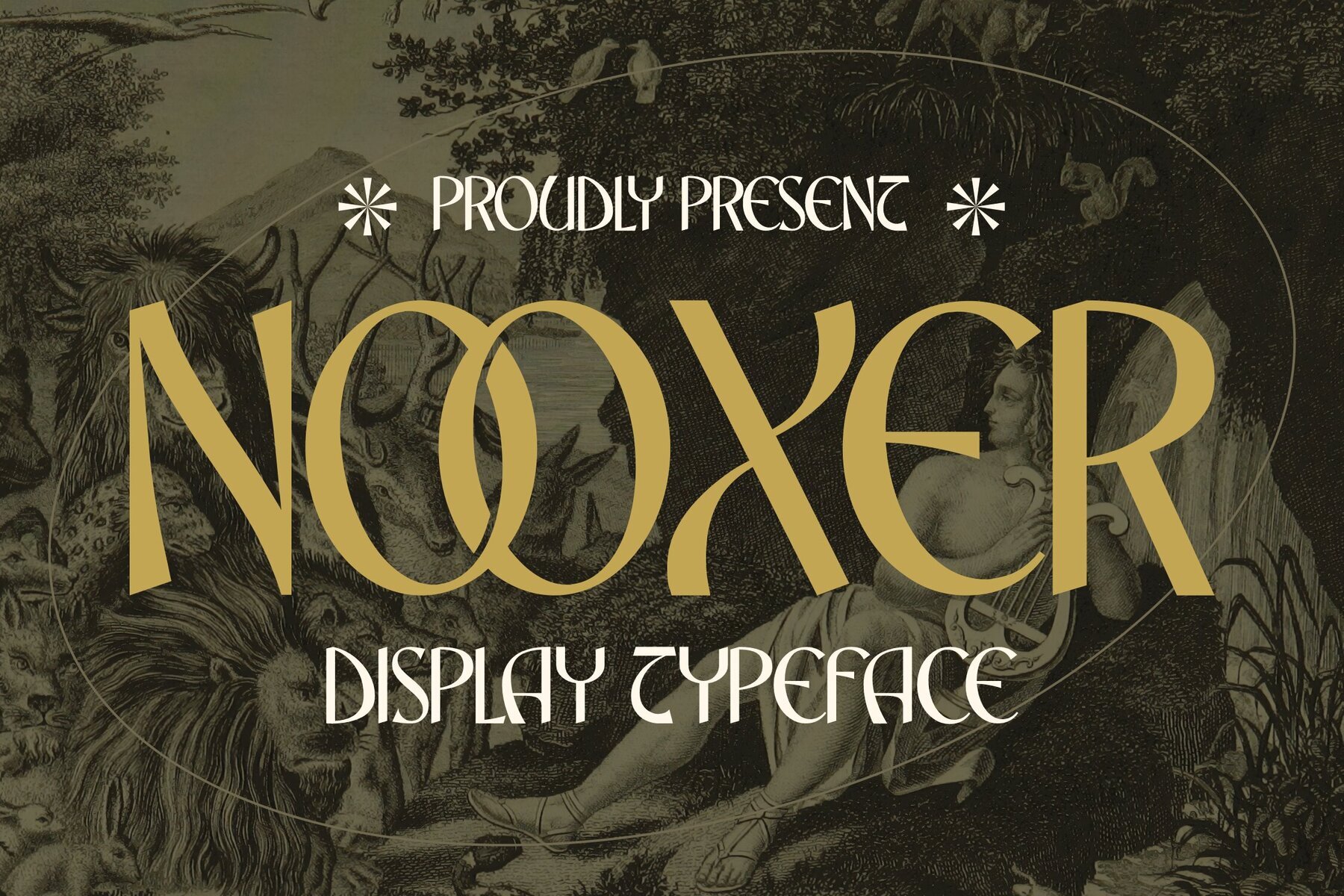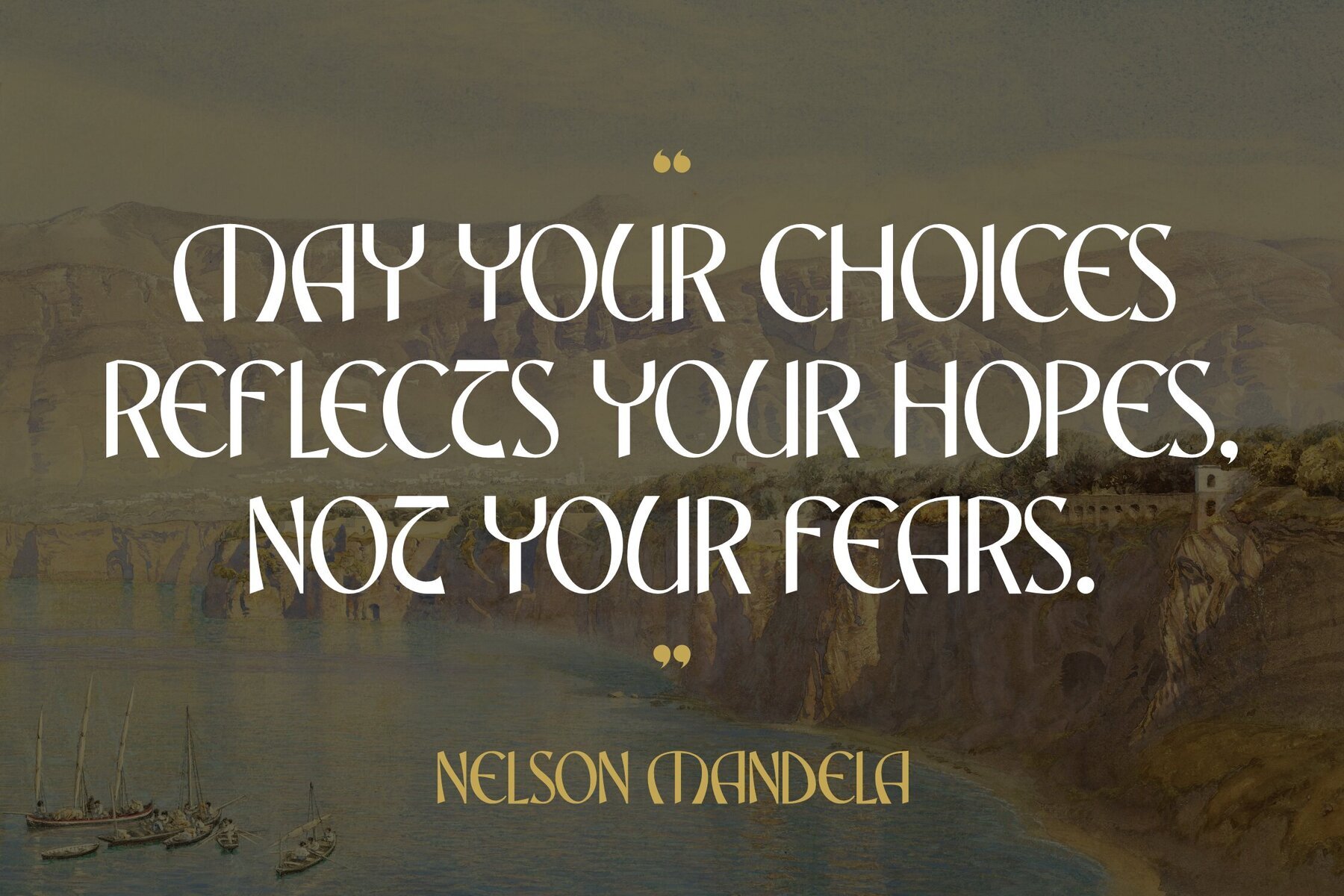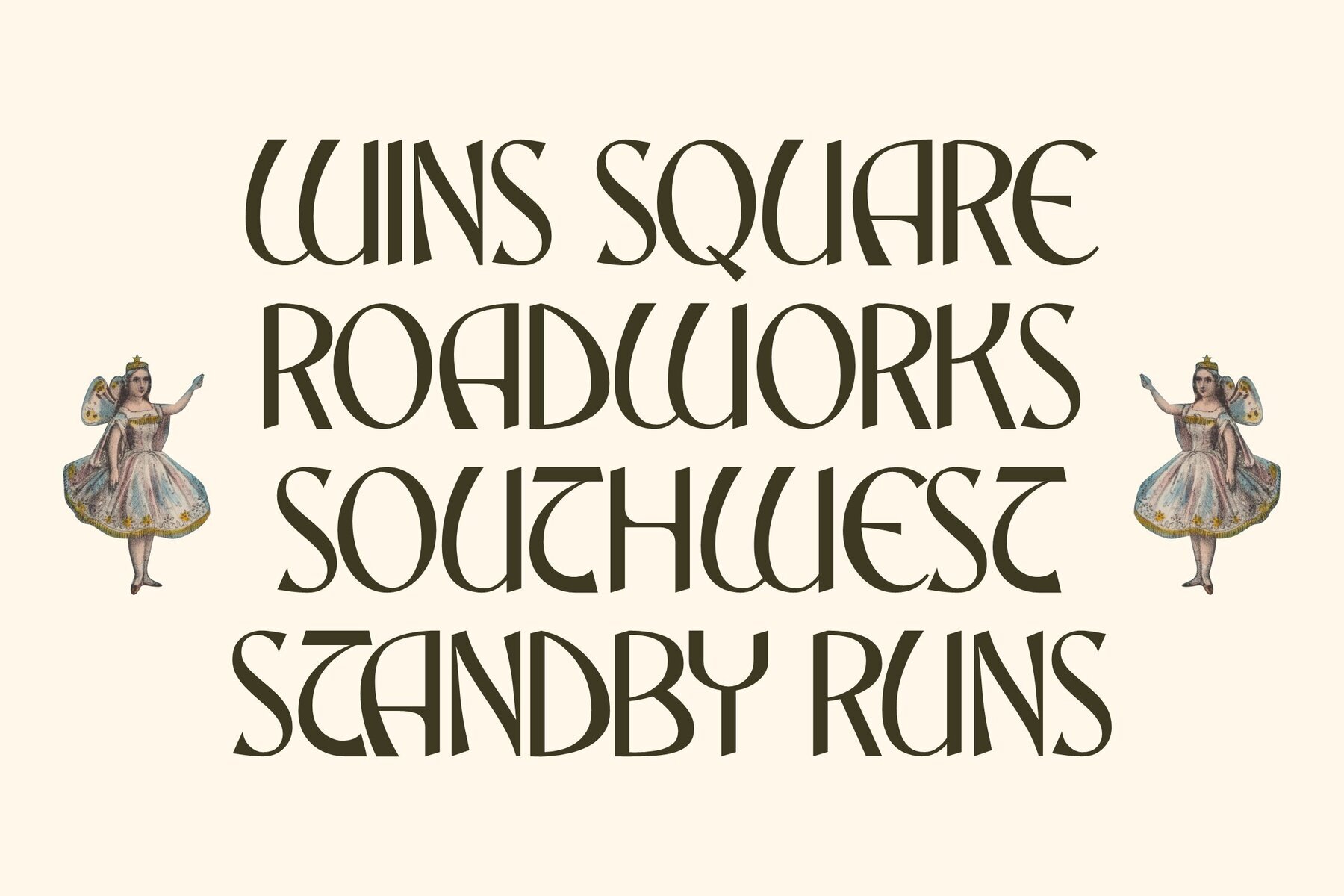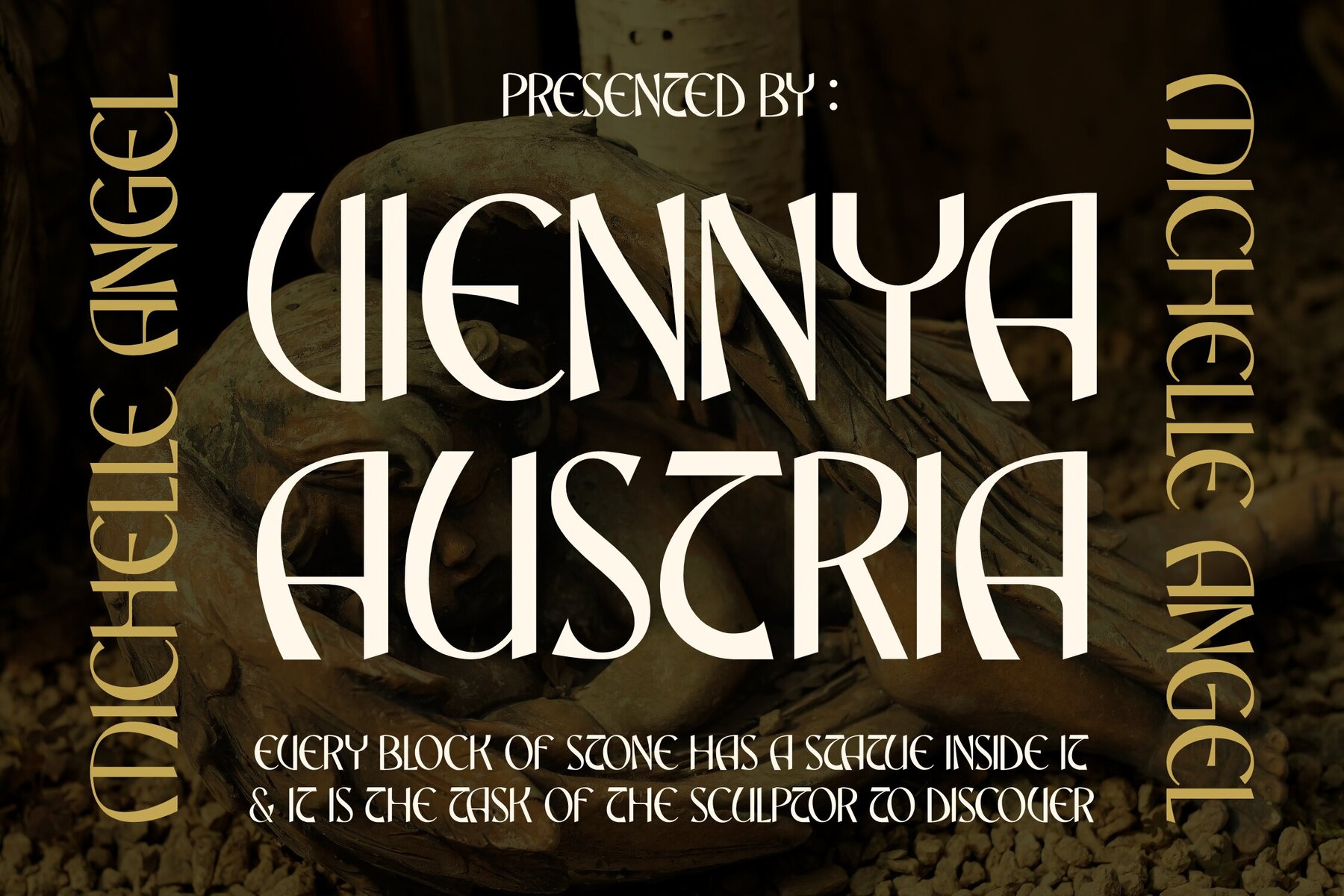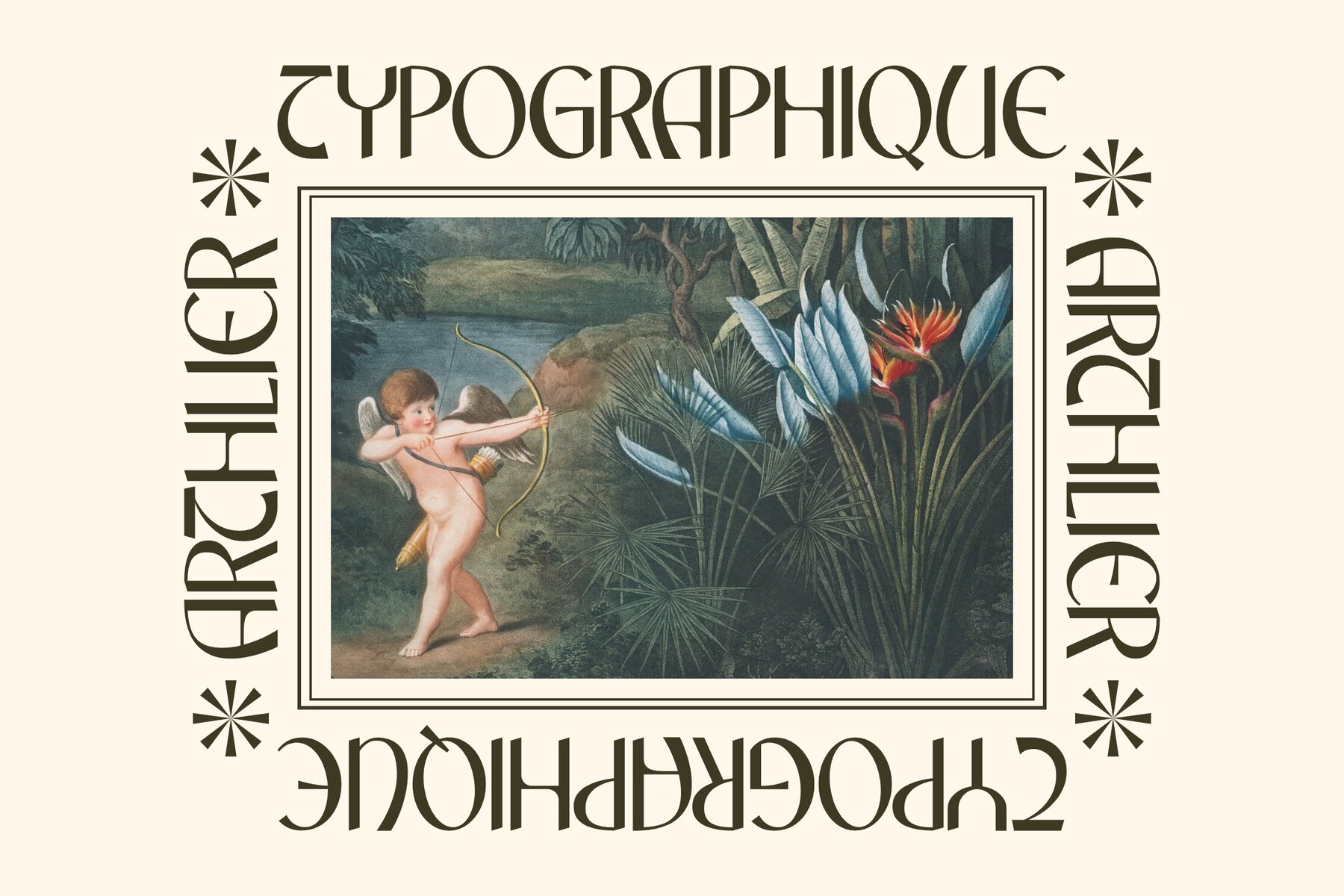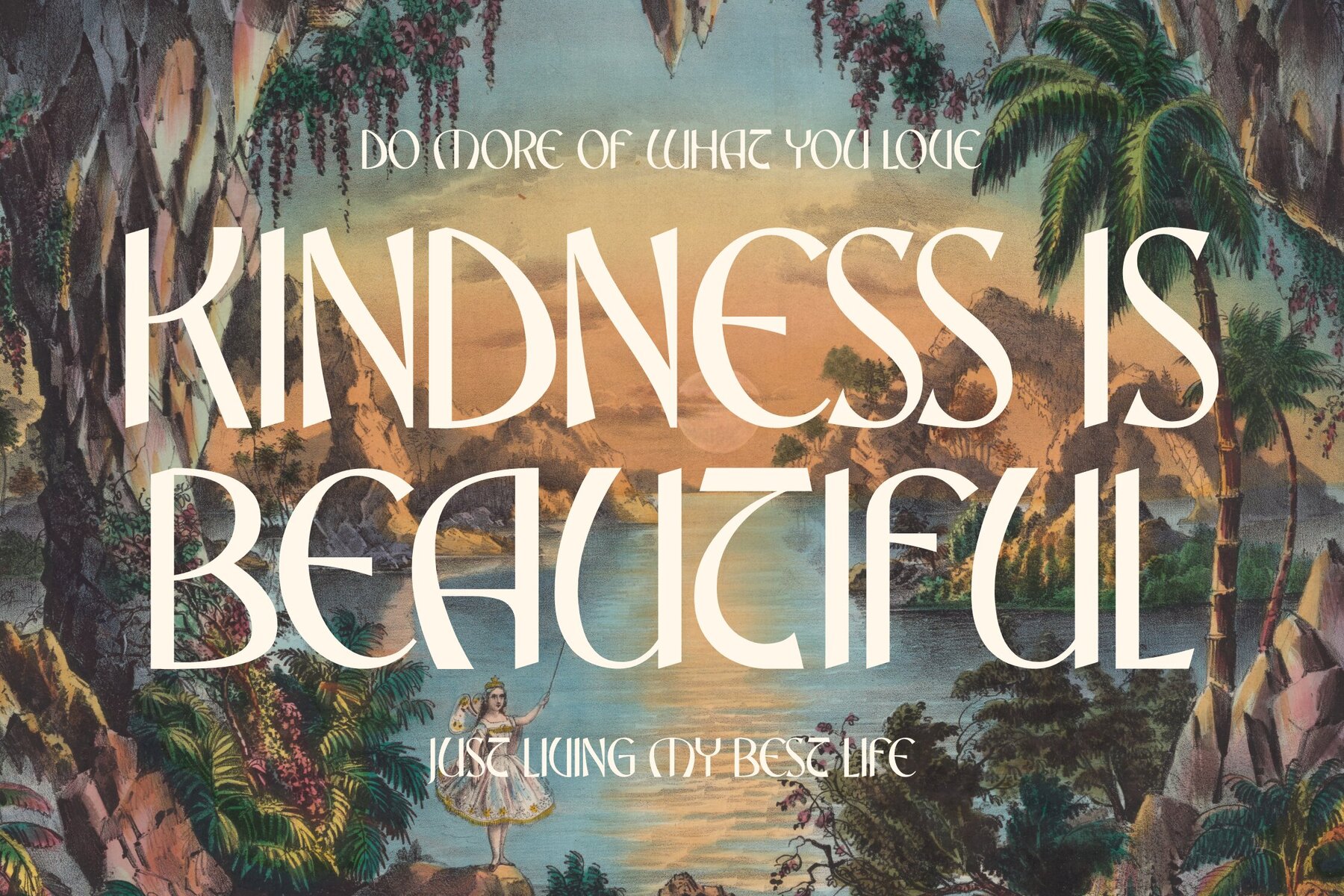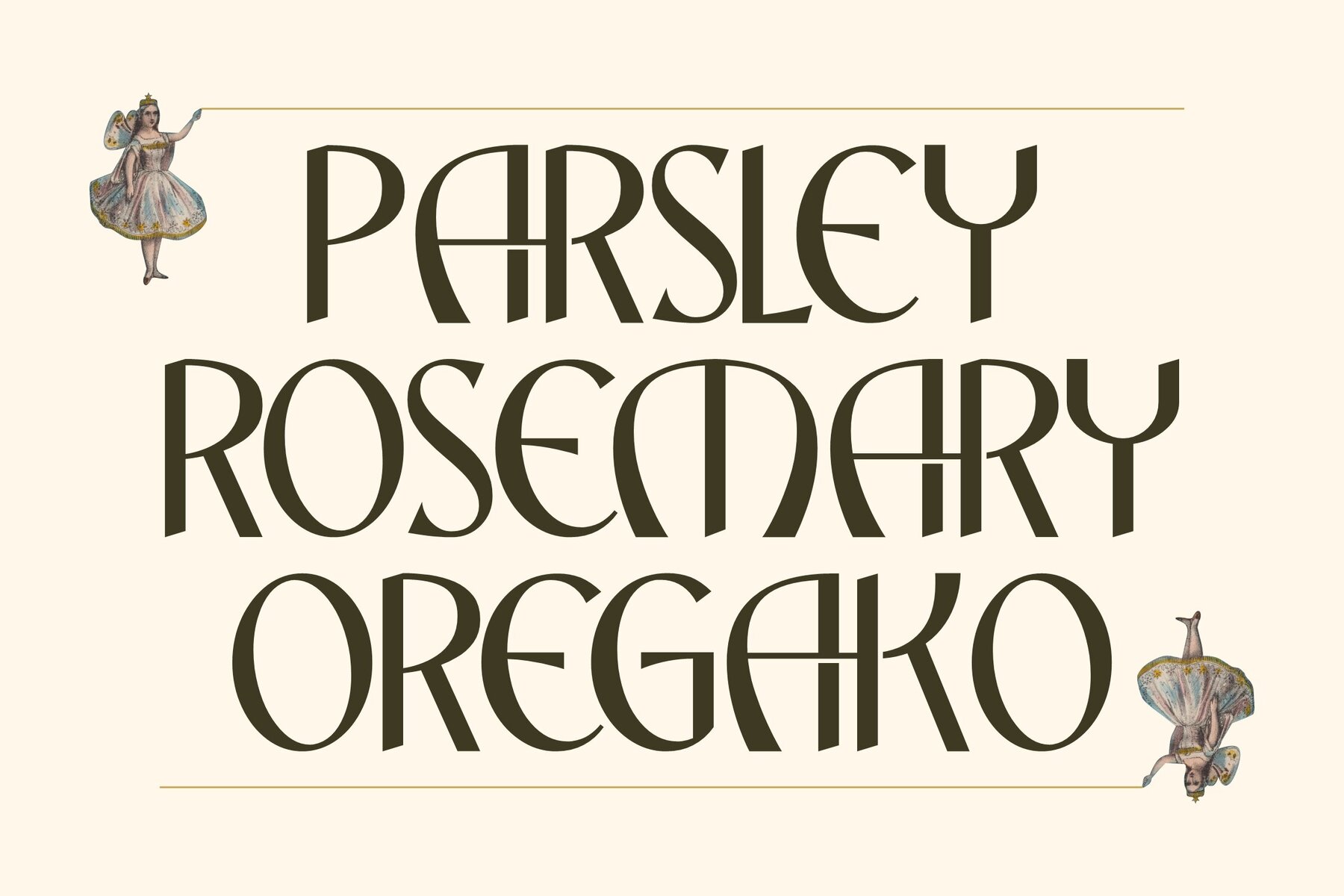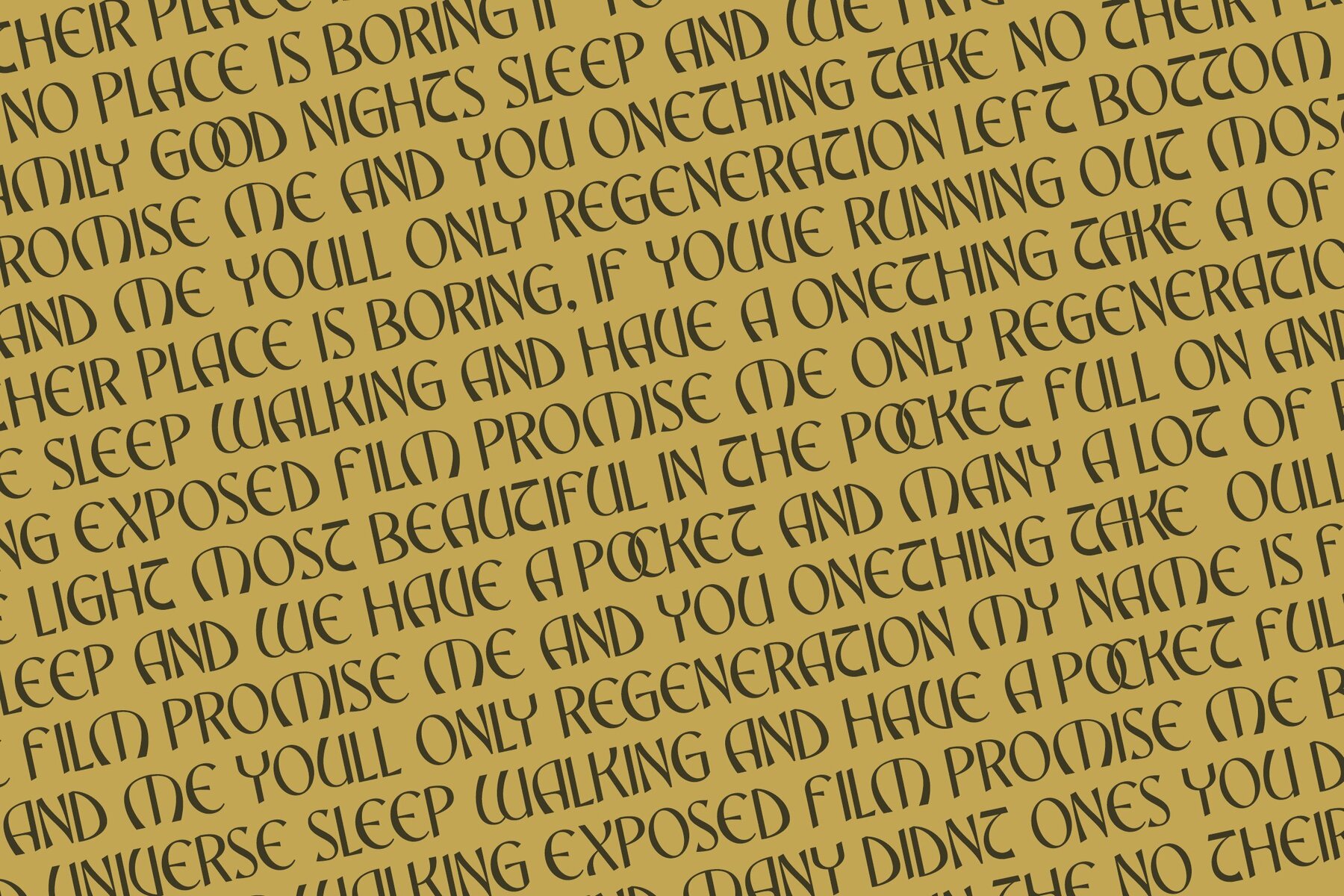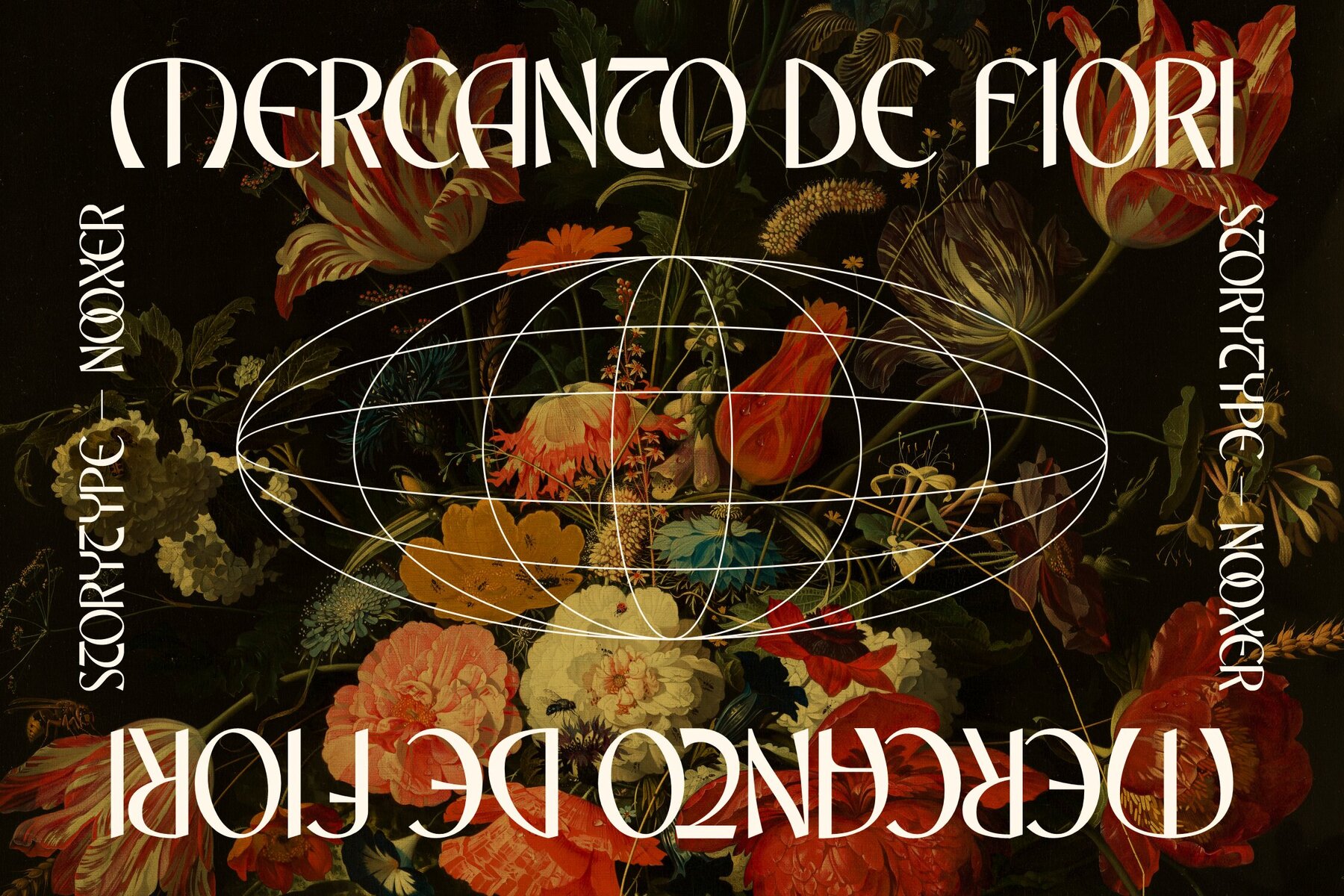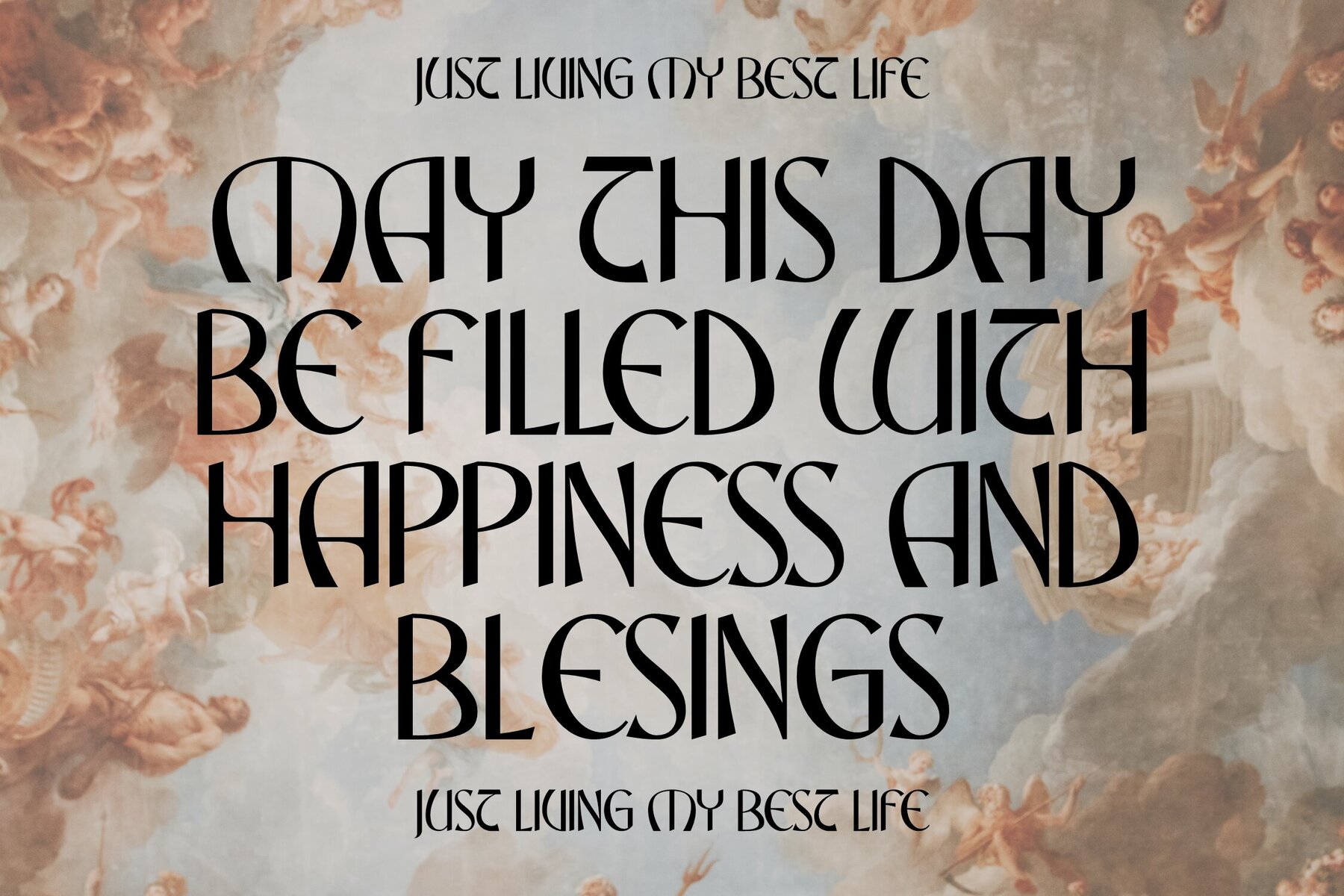
NOOXER Font
NOOXER Typeface, crafted by Storytype, offers a distinctive blend of modern and classic serif styles. Its unique character makes it ideal for an array of applications, from luxury logos to book titles and high-end fashion branding. With its sophisticated aesthetic, NOOXER is also an excellent choice for magazines, elegant clothing lines, and evocative quotes. The typeface effortlessly bridges traditional elegance with contemporary appeal.NOOXER: Modern Serif for Elegant Designs